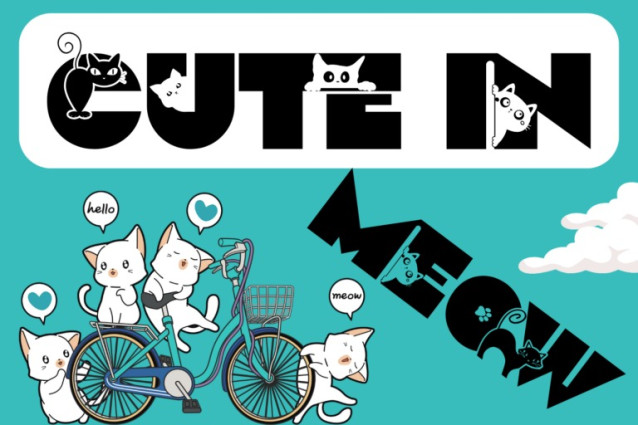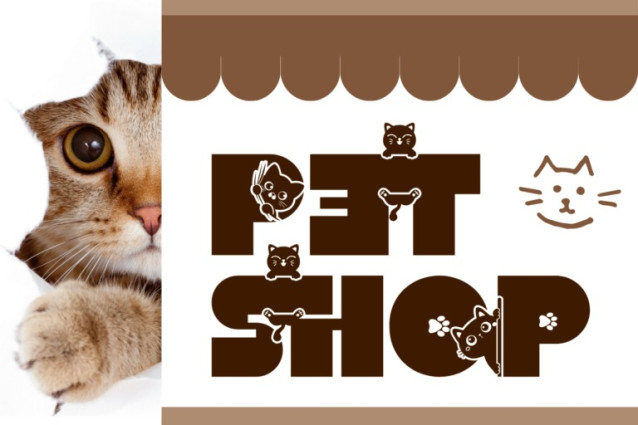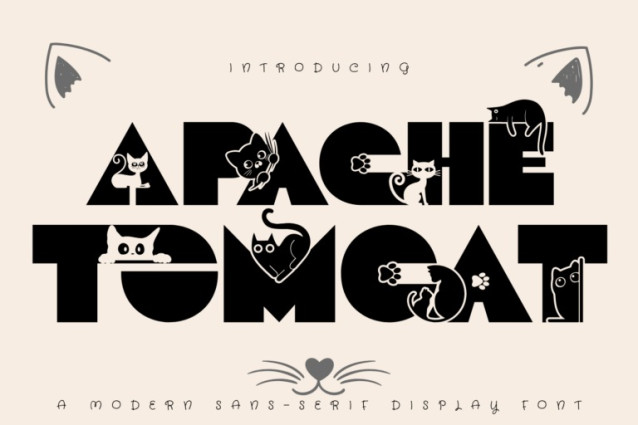
Apache Tomcat Font
Apache Tomcat – Decorative Font is a charming decorative display font that fuses bold geometric lettering with delightful cat illustrations. Each uppercase letter is uniquely integrated with playful feline graphics—cats stretching, peeking, lounging, and interacting with the letterforms—making every word a fun visual composition. Perfect for children’s books, pet shops, animal rescue branding, greeting cards, or quirky product packaging, this font turns typography into storytelling.
Font Features:
Uppercase Letters
100+ Whimsical Ligatures and Alternates featuring various cat poses
Accented Characters for multilingual support
High-resolution vector quality
About 100 ligatures combined with Stylistic Alternates Font: